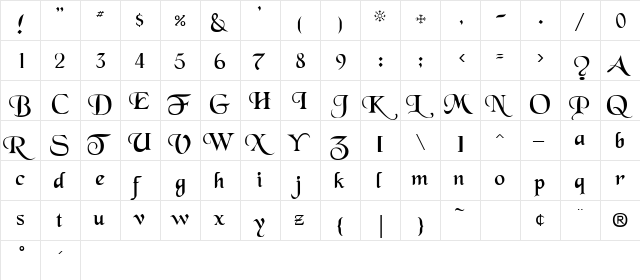
FarranceSSK Regular
Design Context for FarranceSSK Typeface
FarranceSSK is a composed and adaptable typeface that performs quietly and consistently across a wide range of design contexts.